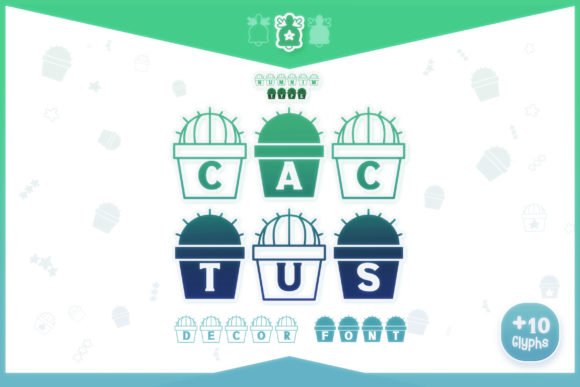
Get Ready to Prick Up Your Designs with Cactus Font
Who hasn’t been inspired by a beautiful cactus in the desert? Its unique shape and quirky charm have captivated artists and designers for centuries. One creative moment that sparked an idea for us was seeing a cactus in bloom, its vibrant colors and intricate patterns a true marvel of nature. This experience sparked an idea to create a font that captures the essence of these fascinating plants.
Enter Cactus Font, a cool and uniquely designed decorative font created particularly for cactus lovers. Each character is fun and playful, perfect for adding a bold accent to your designs! Whether you’re a graphic designer, illustrator, or simply someone who loves cacti, this font is sure to bring a smile to your face.
For designers, Cactus Font is a valuable asset in their toolkit. Its quirky charm and playful feel make it perfect for adding a touch of whimsy to any design. Whether you’re creating a logo, poster, or social media graphic, Cactus Font is sure to add a unique and eye-catching element to your work.
Cactus Font Key Features
- Font Family: Cactus Font is a unique, hand-drawn font designed for various creative purposes.
- Character Set: The font includes a comprehensive set of characters, including uppercase and lowercase letters, numbers, and punctuation.
- Unique Characteristics: Cactus Font features a distinctive, cactus-inspired design with bold lines and playful textures, adding a touch of whimsy to any project.
Cactus Font Review
Cactus Font is a unique, hand-drawn font that catches the eye with its playful and quirky feel. ✨ One of the things I like most about this font is its versatility – it can be used for a variety of projects, from children’s books to craft labels. The cactus theme is cleverly integrated throughout the font, adding an extra layer of whimsy and personality.
- ✨ Unique and playful design
- ✨ Versatile and suitable for various projects
- ✨ Well-suited for titles, headings, and short paragraphs
- ⚠️ The font may be too busy or distracting for long blocks of text
- ⚠️ Some letters may be difficult to read, particularly at small sizes
Overall, I think Cactus Font is a fun and creative choice for projects that need a bit of personality. While it may not be the best choice for every project, it’s definitely worth considering for those that want to add a touch of whimsy and charm.
Tips for Getting the Most Out of Cactus Font
For best results, use Cactus Font in combination with bold colors and simple backgrounds. This font is ideal for creating eye-catching titles, headings, and quotes.
Cactus Font is commonly used in:
– Print materials (business cards, flyers, posters)
– Digital presentations (PowerPoint, Google Slides)
Alternatives to Cactus Font for Designers
Great Vibes is a fun, handwritten font perfect for adding a playful touch to your designs. It’s great for titles, headings, and short paragraphs. Great Vibes has a more elegant feel compared to Cactus Font, with a more refined and polished look.
Pacifico is a beautiful, modern script font ideal for use in branding, advertising, and editorial designs. It has a more sophisticated feel compared to Cactus Font, with a focus on elegance and sophistication. Pacifico is perfect for creating a luxurious and high-end look.
Lobster is a distinctive, cursive font that’s great for adding a touch of whimsy to your designs. It’s perfect for use in titles, headings, and short paragraphs. Lobster has a more casual feel compared to Cactus Font, with a focus on fun and playfulness.